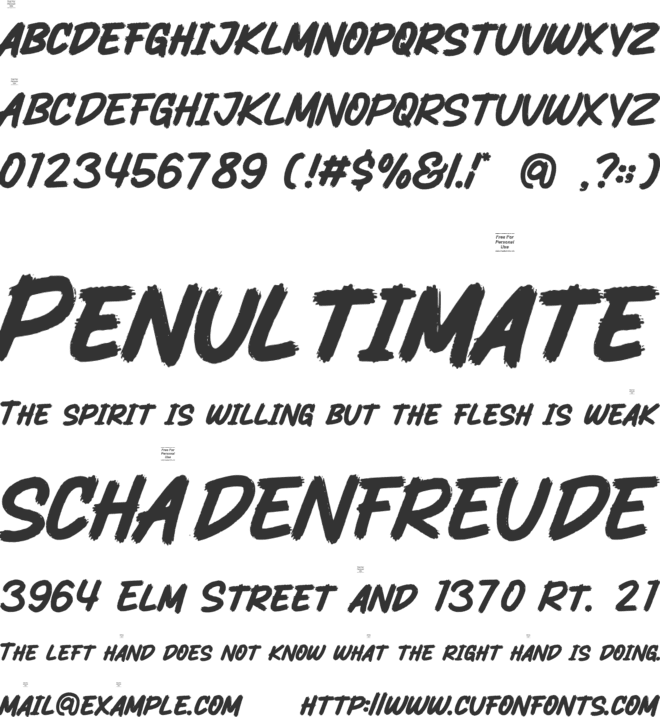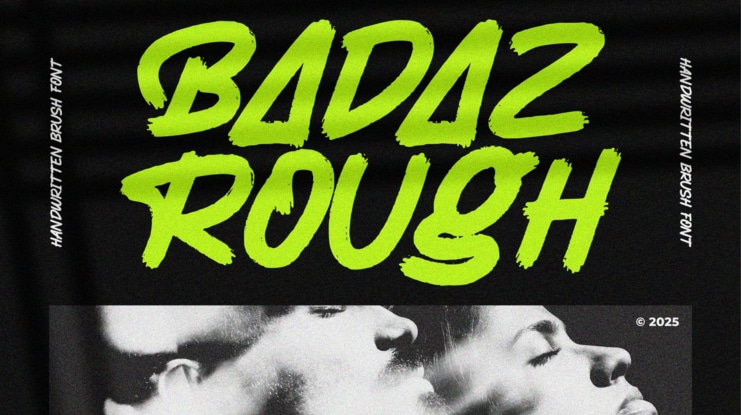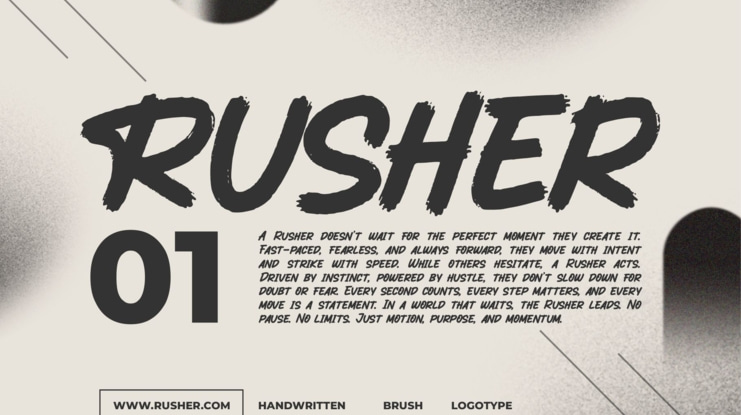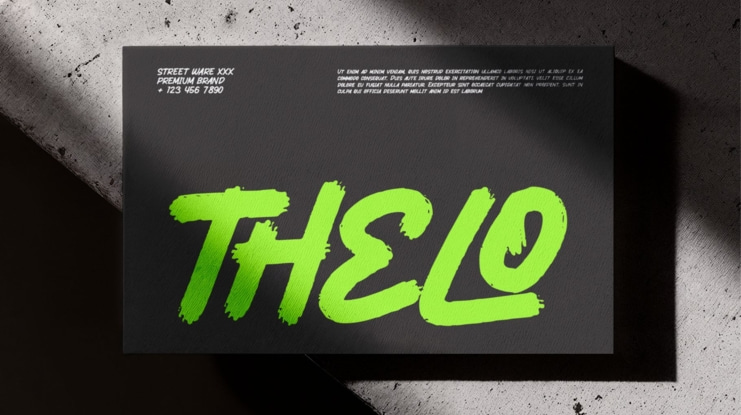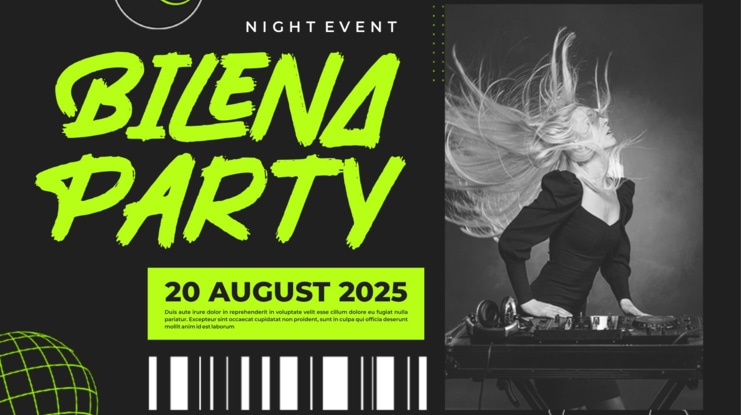
BADAZ Font
Introducing Badaz Rough, a freestyle brush font moving with energy. This font was created with digital brush strokes, carefully vectorized to keep the textures. Badaz Rough is a street font that delivers a loud message and strong.
This font equipped with stylistic alternates to gives a more powerful design. Badaz Rough is ideal for logos, banners, quotes, books, social media posts, posters, flyers, stickers, and many more!